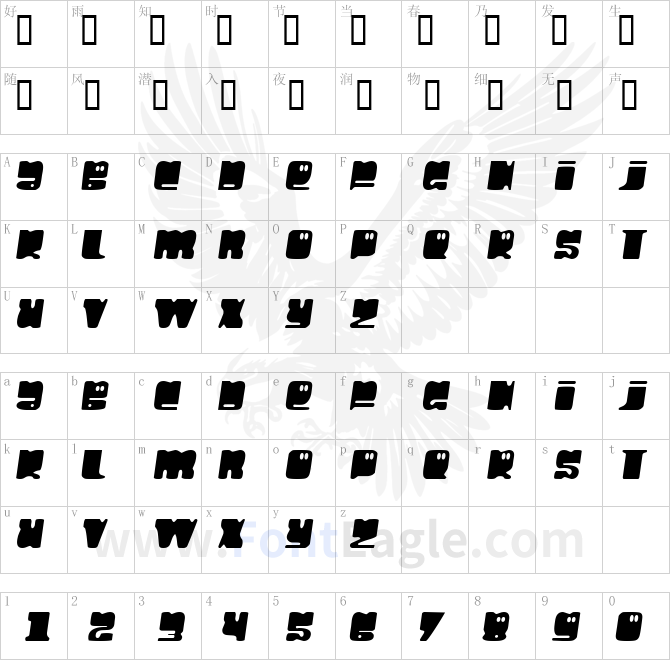
Hello-Larry is a great font, widely used in graphic design, single-page menu design, poster design and other fields, and is deeply loved by designers.Hello-Larry download.